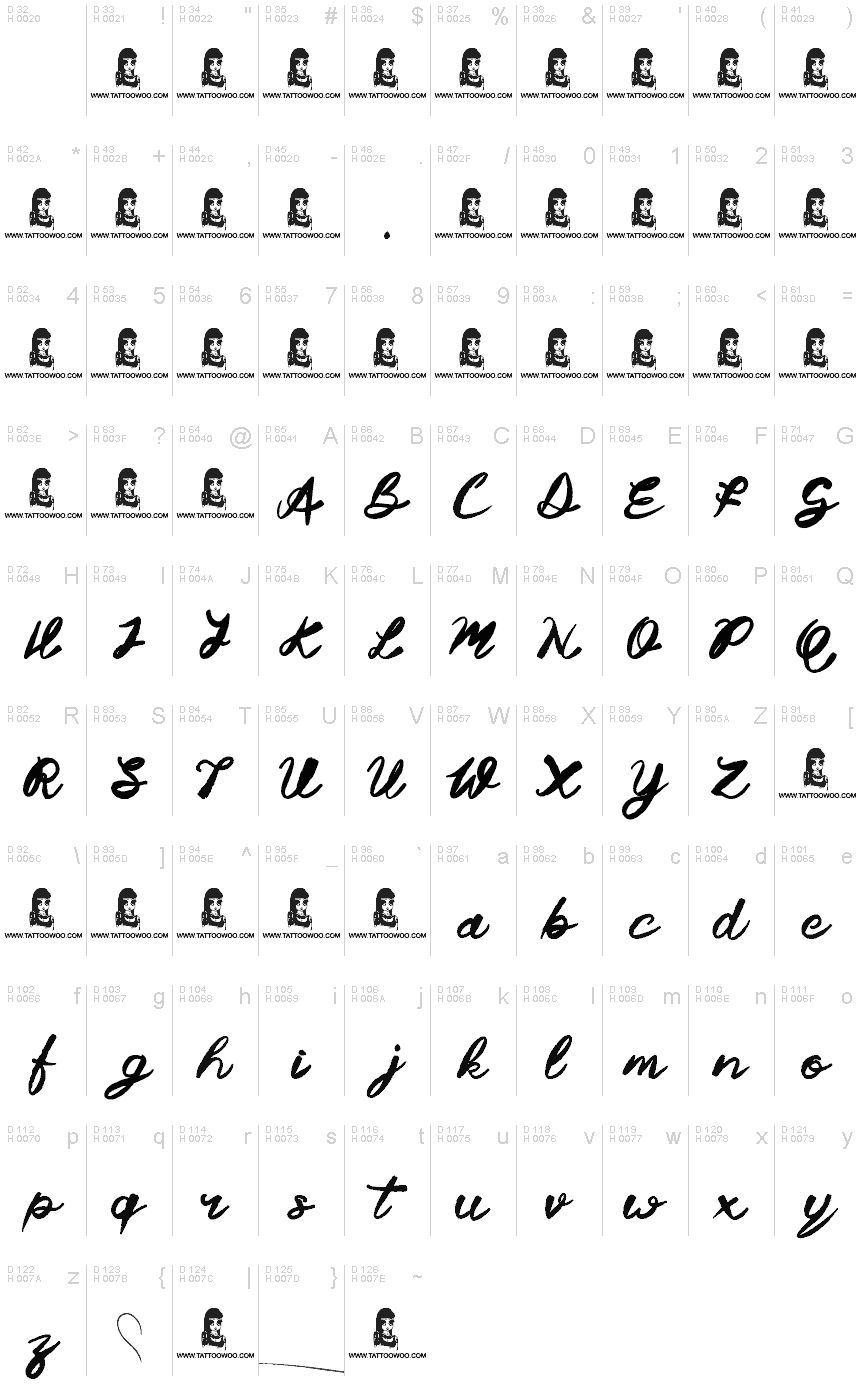
Margarita
Margarita is a captivating brush script font that effortlessly blends elegance and personality. Designed by Jonathan Stephen Harris of JSH creates, this font exudes a sense of effortless sophistication with its flowing, organic strokes and subtle variations in line thickness. The Margarita font's distinctive cursive style lends an air of casual sophistication, making it an ideal choice for a wide range of design applications, from wedding stationery and branding to packaging and editorial layouts. Its natural, handwritten aesthetic adds a touch of charm and personality to any project, elevating the overall visual impact.
The Margarita font's versatility extends beyond its aesthetic appeal. Its clean, legible letterforms ensure easy readability, even in smaller sizes, making it a versatile option for both display and body text use. Whether you're crafting a chic invitation, designing a stylish product label, or seeking to infuse your branding with a touch of casual elegance, the Margarita font is a captivating choice that will leave a lasting impression.